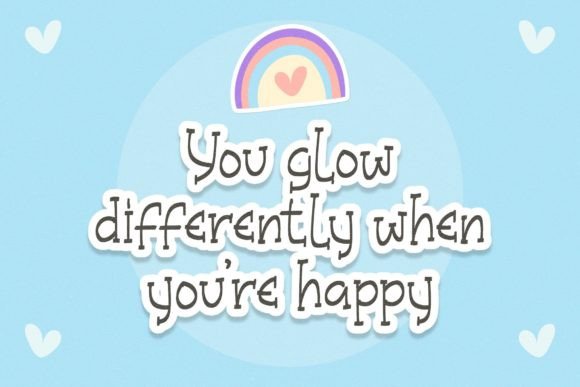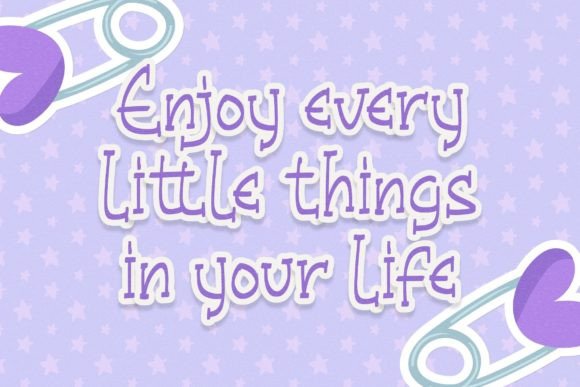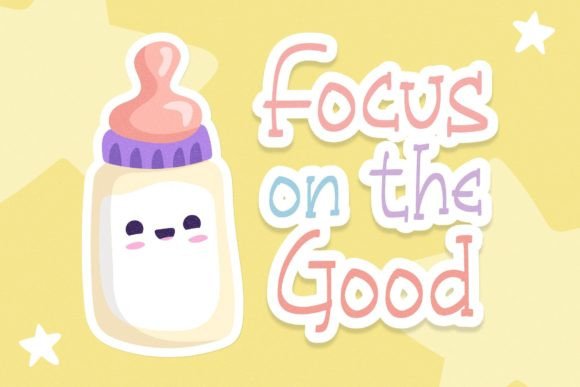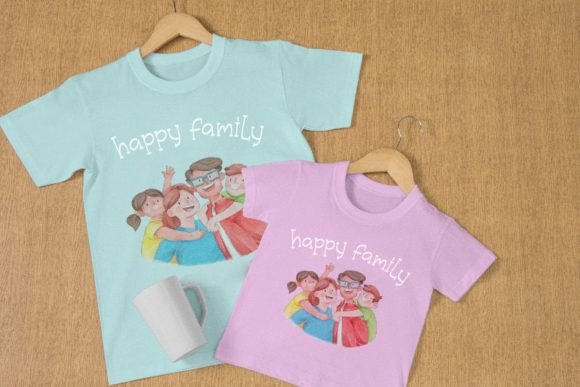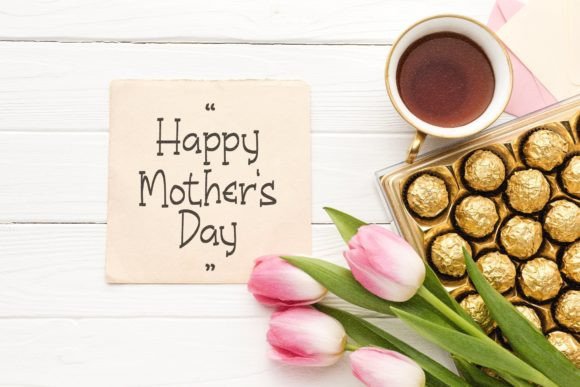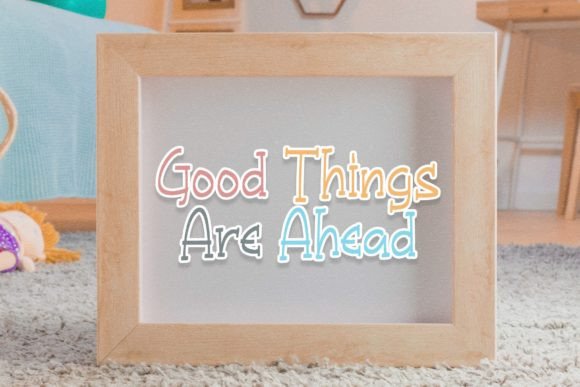
Bumpinks Font: Add a Joyful Touch to Your Designs
Are you looking for a font that can add a playful and quirky touch to your designs? Look no further than Bumpinks Font! This cute and charming display font is perfect for designers and crafters who want to make their creative projects stand out. In this article, we’ll take a closer look at Bumpinks Font, its features, and how you can use it to elevate your designs.
What is Bumpinks Font?
Bumpinks Font is a unique and eye-catching display font that is designed to add a joyful touch to your designs. Its quirky and playful style makes it perfect for a variety of creative projects, from digital designs to print materials. Whether you’re working on a logo, poster, or social media graphic, Bumpinks Font is sure to make your design pop.
Key Features of Bumpinks Font
- Cute and Quirky Style: Bumpinks Font has a playful and charming style that is sure to capture the attention of your audience.
- Display Font: This font is specifically designed as a display font, making it perfect for headlines, titles, and other prominent text elements.
- Easy to Read: Despite its playful style, Bumpinks Font is easy to read, making it perfect for use in a variety of creative projects.
- Versatile: Bumpinks Font can be used in a variety of creative projects, from digital designs to print materials.
How to Use Bumpinks Font in Your Designs
Using Bumpinks Font in your designs is easy! Here are a few tips to get you started:
- Pair it with Other Fonts: Bumpinks Font pairs well with other fonts, making it easy to create a unique and visually appealing design.
- Use it for Headlines and Titles: Bumpinks Font is perfect for use in headlines and titles, where its playful style can really shine.
- Add it to Your Digital Designs: Bumpinks Font is perfect for use in digital designs, such as social media graphics, blog posts, and more.
- Use it in Print Materials: Bumpinks Font can also be used in print materials, such as posters, flyers, and brochures.
Benefits of Using Bumpinks Font
There are many benefits to using Bumpinks Font in your designs. Here are a few:
- Adds a Joyful Touch: Bumpinks Font adds a playful and joyful touch to your designs, making them more engaging and attention-grabbing.
- Increases Creativity: Bumpinks Font’s quirky style can help inspire creativity and add a unique touch to your designs.
- Perfect for a Variety of Projects: Bumpinks Font can be used in a variety of creative projects, making it a versatile addition to your font collection.
Who Can Benefit from Using Bumpinks Font?
Bumpinks Font is perfect for a variety of designers and crafters, including:
- Graphic Designers: Graphic designers can use Bumpinks Font to add a playful touch to their designs, making them more engaging and attention-grabbing.
- Social Media Managers: Social media managers can use Bumpinks Font to create eye-catching social media graphics that stand out.
- Crafters: Crafters can use Bumpinks Font to add a personal touch to their craft projects, such as handmade cards and gift tags.
In conclusion, Bumpinks Font is a cute and quirky display font that can add a joyful touch to your designs. Its playful style and versatility make it perfect for a variety of creative projects, from digital designs to print materials. Whether you’re a graphic designer, social media manager, or crafter, Bumpinks Font is sure to become a valuable addition to your font collection.